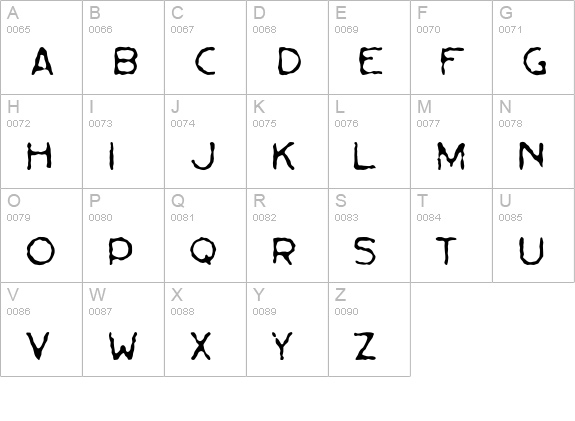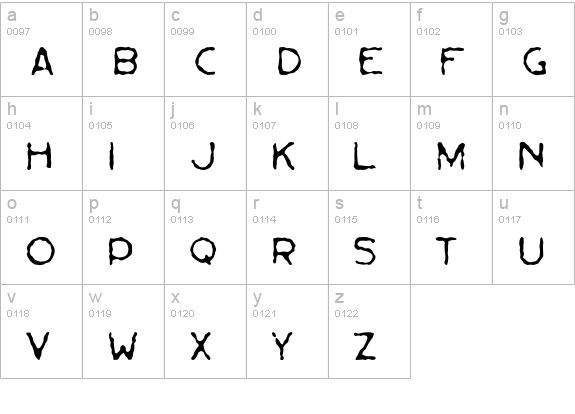
Bessie Font Details
Bessie Font is a stunning and elegant typeface that exudes sophistication and charm. With its graceful curves and timeless appeal, Bessie Font is perfect for adding a touch of class to any design project. Whether you're creating wedding invitations, branding materials, or social media graphics, this versatile font will elevate your work to the next level. The best part? Bessie Font is completely free to download at FontsMarket.com. That's right, you can access this beautiful font at no cost and use it in your projects without any restrictions. So why wait? Give your designs a touch of elegance with Bessie Font today!